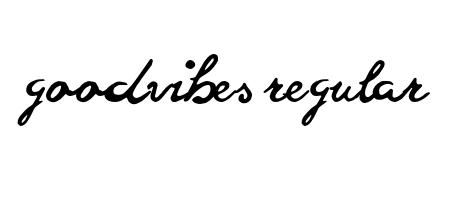
goodvibes regular
By Cruzine
Goodvibes Regular: A font that whispers optimism. Its cursive script dances across the page, each letter a playful flourish. Light and airy, yet undeniably confident, it evokes a sense of carefree joy and effortless style, perfect for adding a touch of bohemian charm to any design. It''s the handwritten note your project has been waiting for.